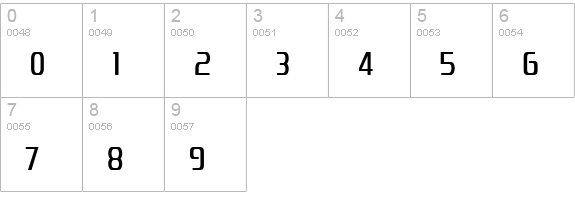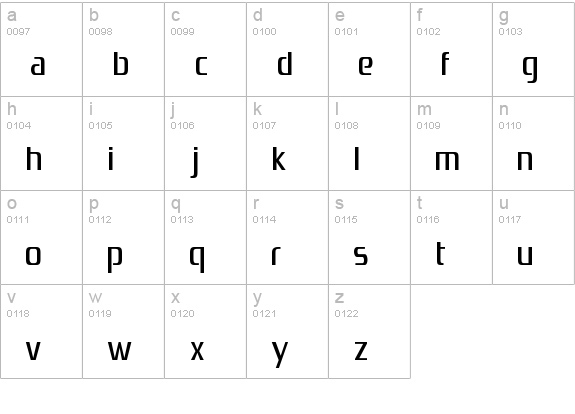
Zrnic Font Details
Zrnic font is a stylish and modern typeface that exudes energy and creativity. Its bold and eye-catching design makes it perfect for headlines, titles, and any design projects that require a touch of edginess. The unique geometric shapes and sharp edges of Zrnic font give it a distinct and contemporary look that will make your text stand out. What's even better is that Zrnic font is available for free download at FontsMarket.com. This means that you can easily access this striking typeface without any cost, making it a valuable addition to your font collection. Whether you're a graphic designer, a marketer, or simply someone who appreciates good typography, Zrnic font is sure to inspire and elevate your projects. Download it today and start adding a dynamic flair to your designs!